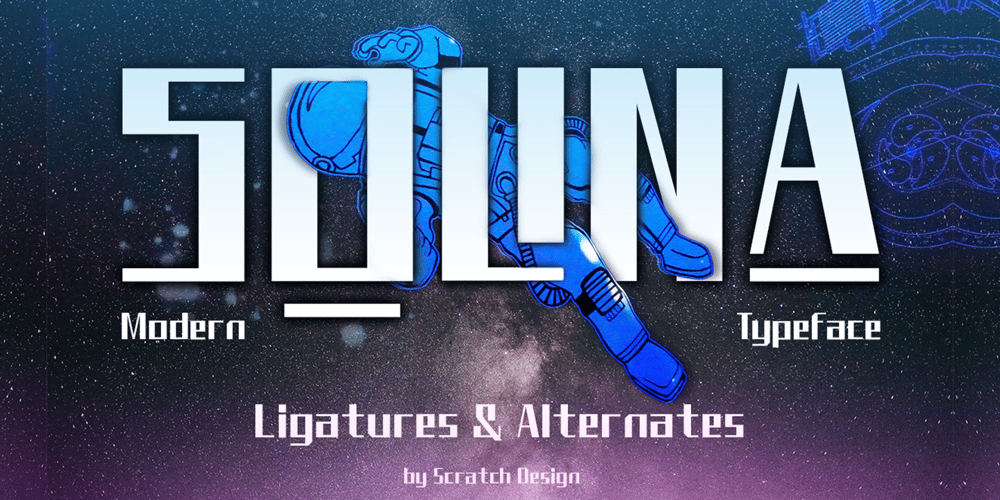
Solina Font Family was designed by Gitayogi Irhandi and published by Scratch Design. Solina contains 1 styles and family package options. Solina is an exciting typeface that is inspired by the future life which is full of robots, mechanics, speed races, automotive and life in space. References to this font are based on the science-fiction visual of the modern-futurism mindset, making it perfect for any project that requires a futuristic and technologically advanced design. This font is perfect for creating sci-fi movie posters, technology-based branding, packaging, event and festival materials, automotive designs, and many more.